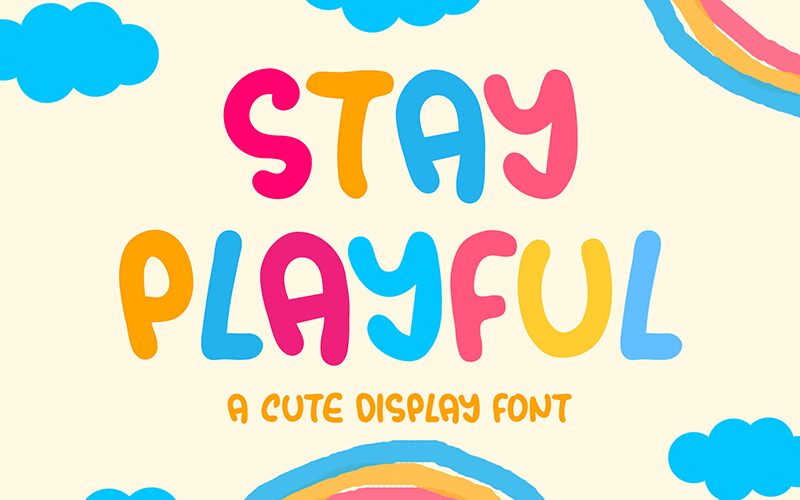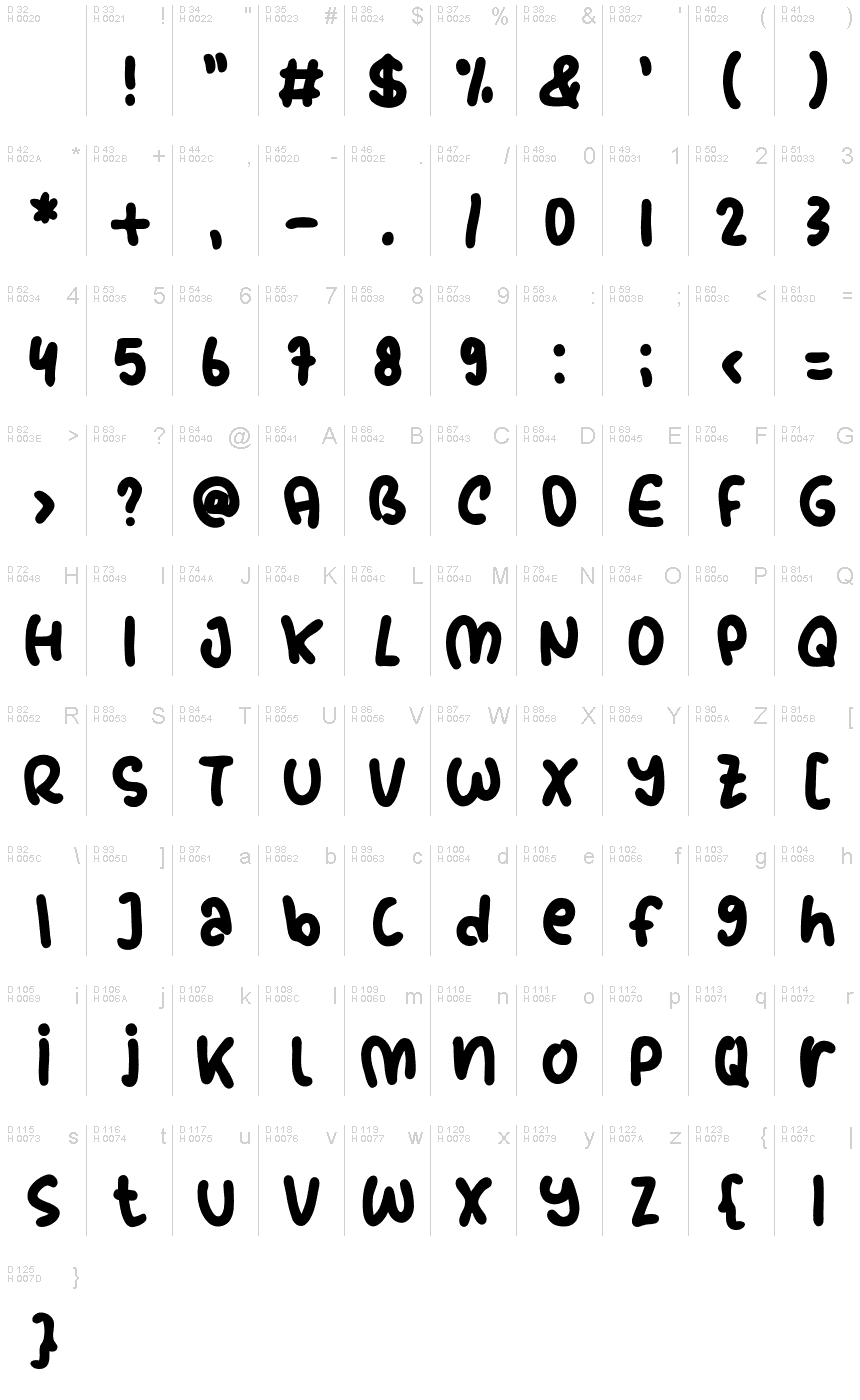
Stay Playful
Stay Playful is a delightful display font designed by Share Font, perfect for adding a touch of whimsy to any project. Its semi-bold weight and cartoon style make it an excellent choice for children's books, playful branding, and eye-catching advertisements. Use it to add personality to product packaging or create fun social media graphics that will grab your audience's attention. This font's versatility also makes it suitable for party invitations, colorful posters, and playful website designs. With Stay Playful, you'll infuse your projects with a sense of joy and playfulness that will make them stand out from the crowd.